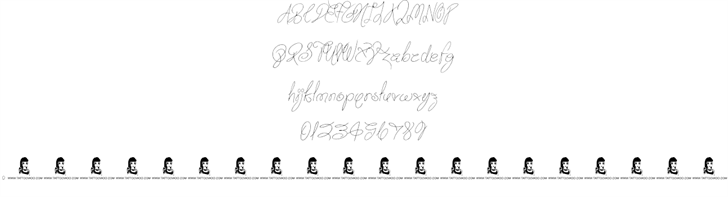
Free Truly Yours Font
Introducing you to the absolutely beautiful free truly yours font. Download this font from the original source of Font Space. This is absolutely fancy font so you can easily make world-class designs.